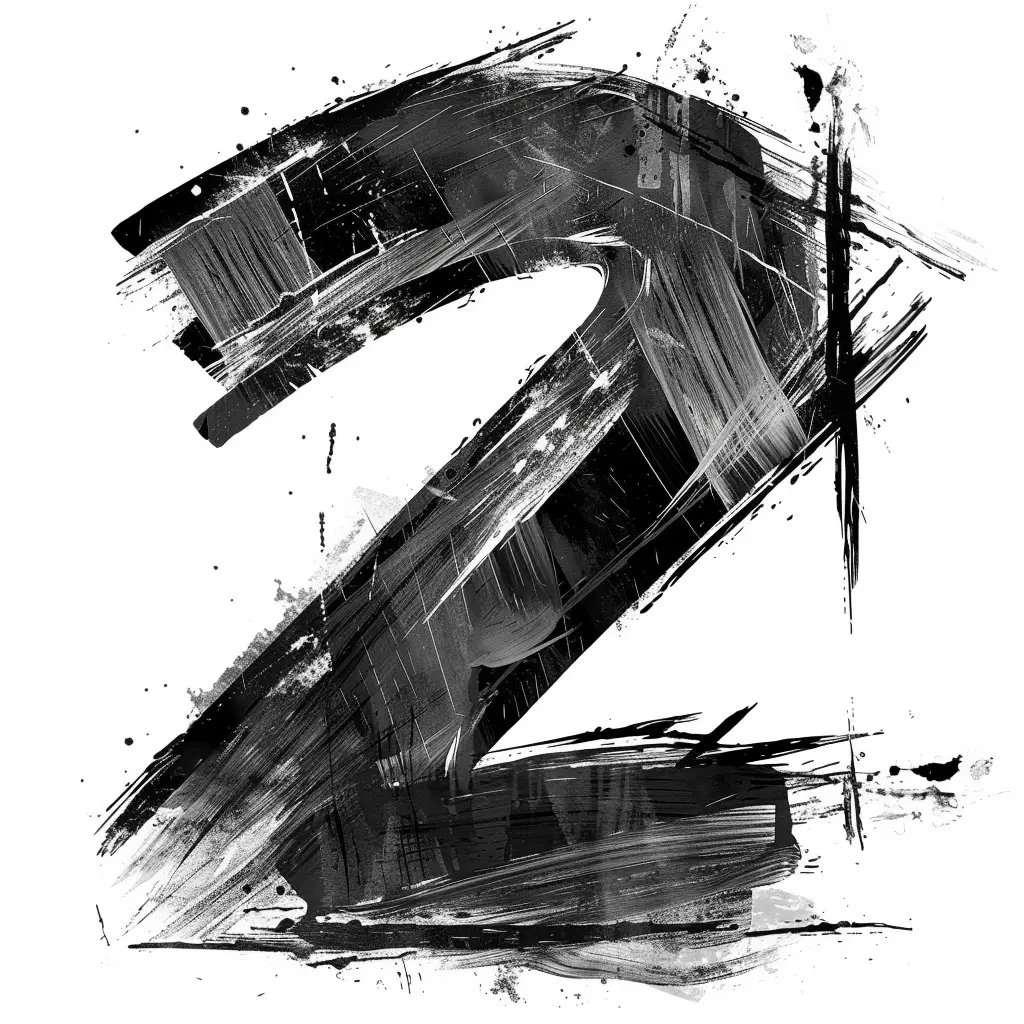
This image features a stylized, artistic representation of the number "2," rendered in bold black brushstrokes against a white background. The design incorporates dynamic, textured brushwork with visible lines, splatters, and layered strokes, giving it a raw, expressive, and slightly chaotic aesthetic. The monochromatic color scheme (black and white) emphasizes the contrast and movement within the composition, highlighting the number’s form through abstract, painterly techniques.